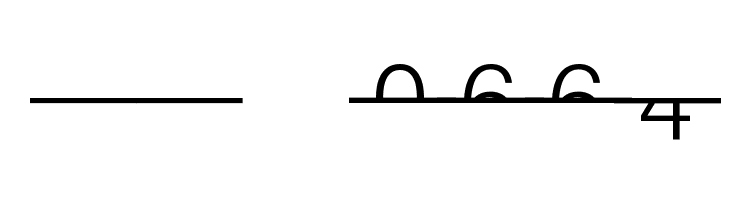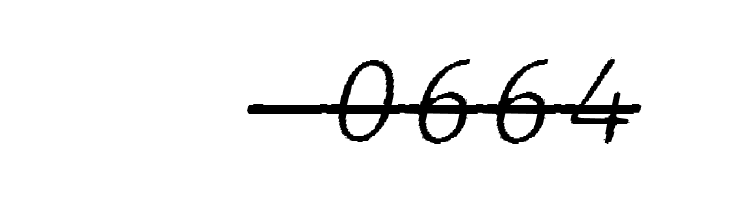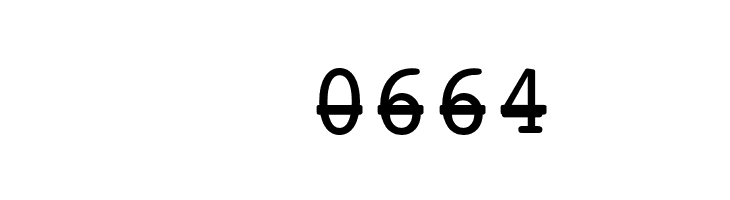
A typewriter-style font with a modern strikethrough effect.
A distressed typewriter-style font with a strikethrough effect across all characters.
A typewriter-style font with italicized letters and a strikethrough effect.
A typewriter-style font with italicized characters and a strikethrough effect.
A bold, geometric font with a strikethrough effect and square framing.
A modern, minimalist font with a unique strikethrough design.
A bold, modern font with a unique strikethrough effect on each character.